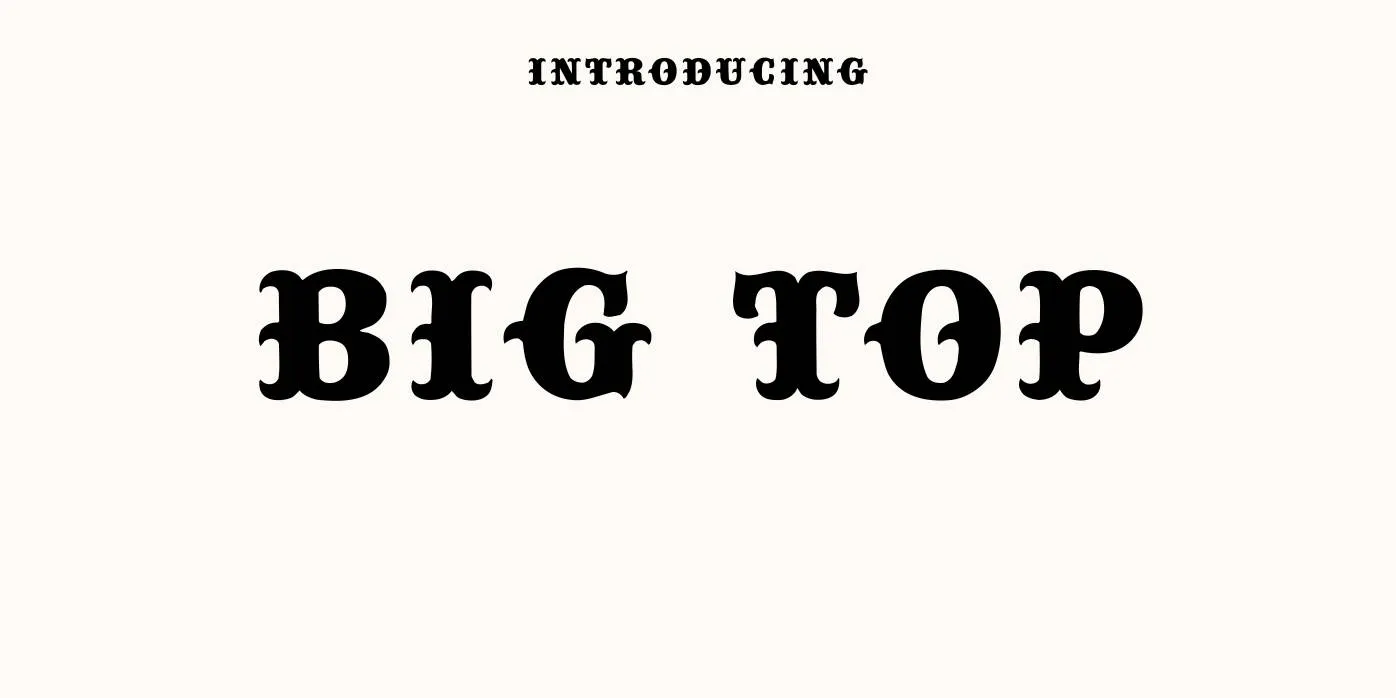
Big Top Font
Shamrock is the designer for this fancy type of texture. Big Top Font is a fancy type of font that is free for both types of projects. This typeface is free of cost for any type of project like individual projects, commercial projects, graphic designing, and whatever you want to do. This typeface is available on this website in both OTF and TTF file formats.
The characters of this typeface are not equally spaced due to every character in this typeface has its own space. There are so many fonts that are available for pairing with this typeface. But I suggest the most appropriate and clear typeface for pairing with it. The panata font is one of them that has all the qualities for pairing.
This typeface has good results when paired with this typeface. There are excellent types of similarities and differences that make your design’s demand up.